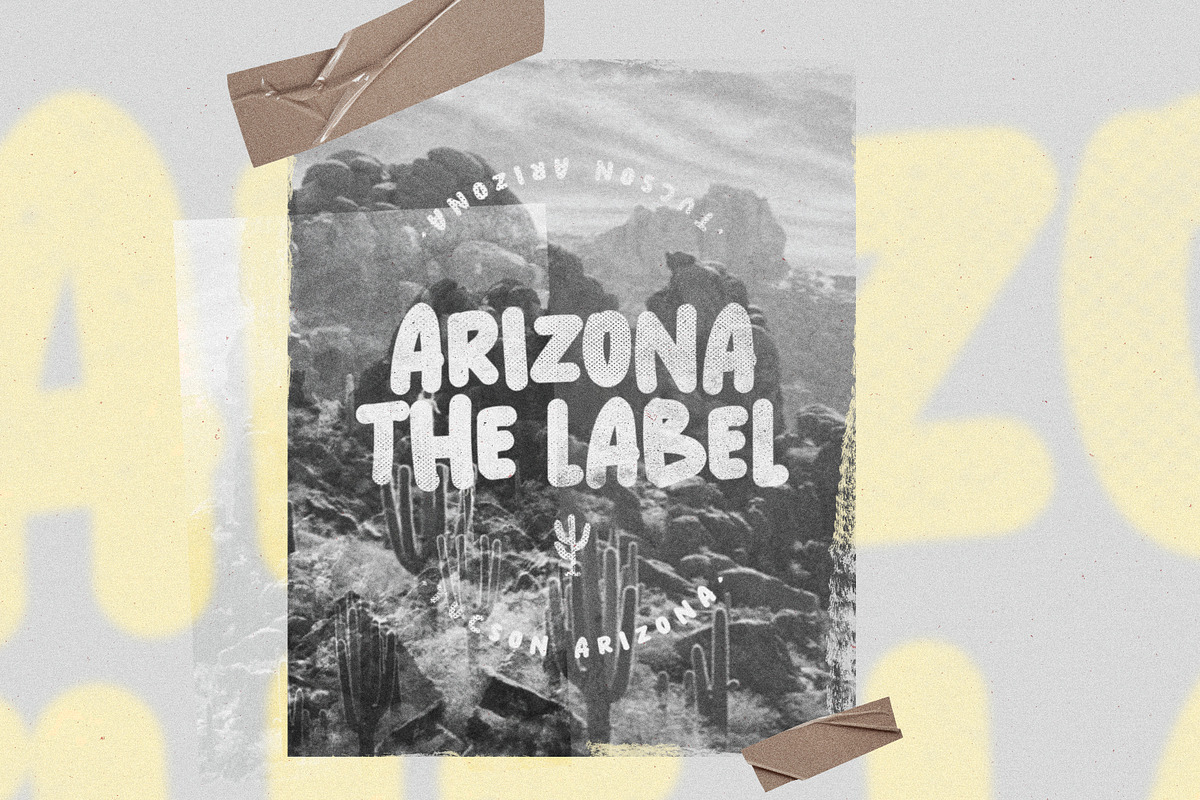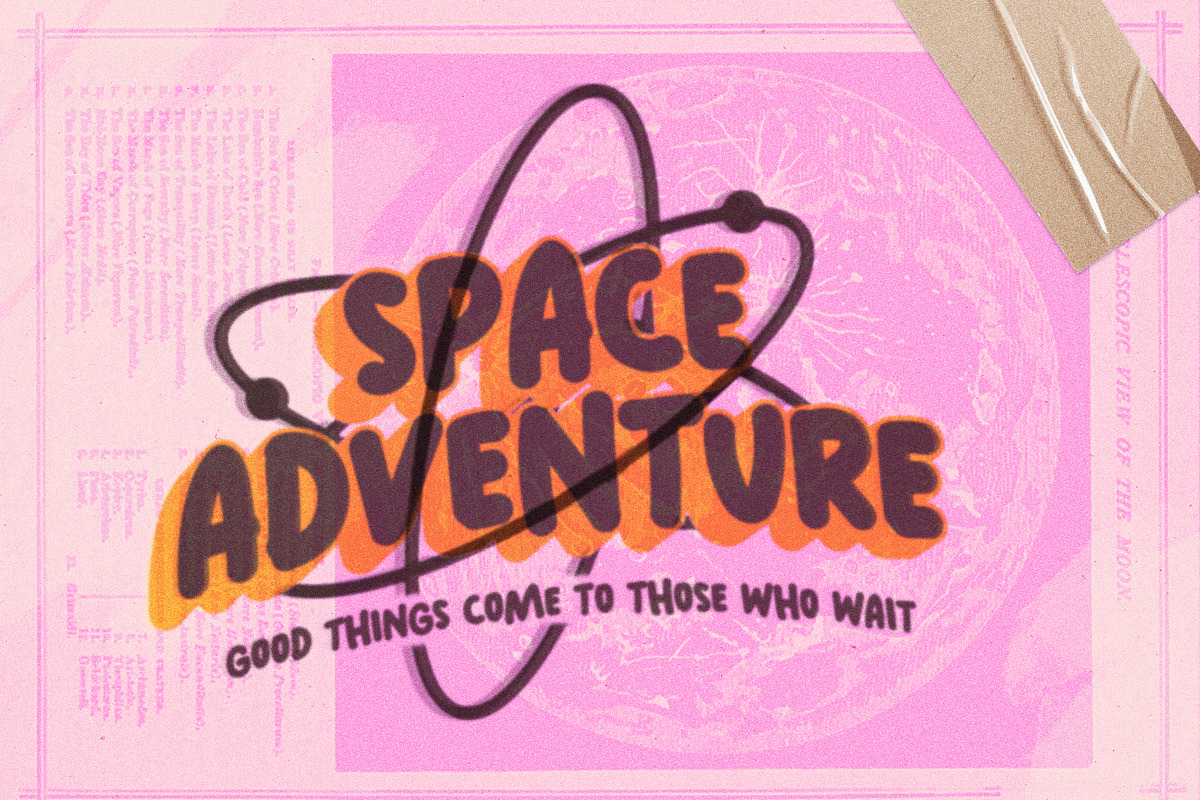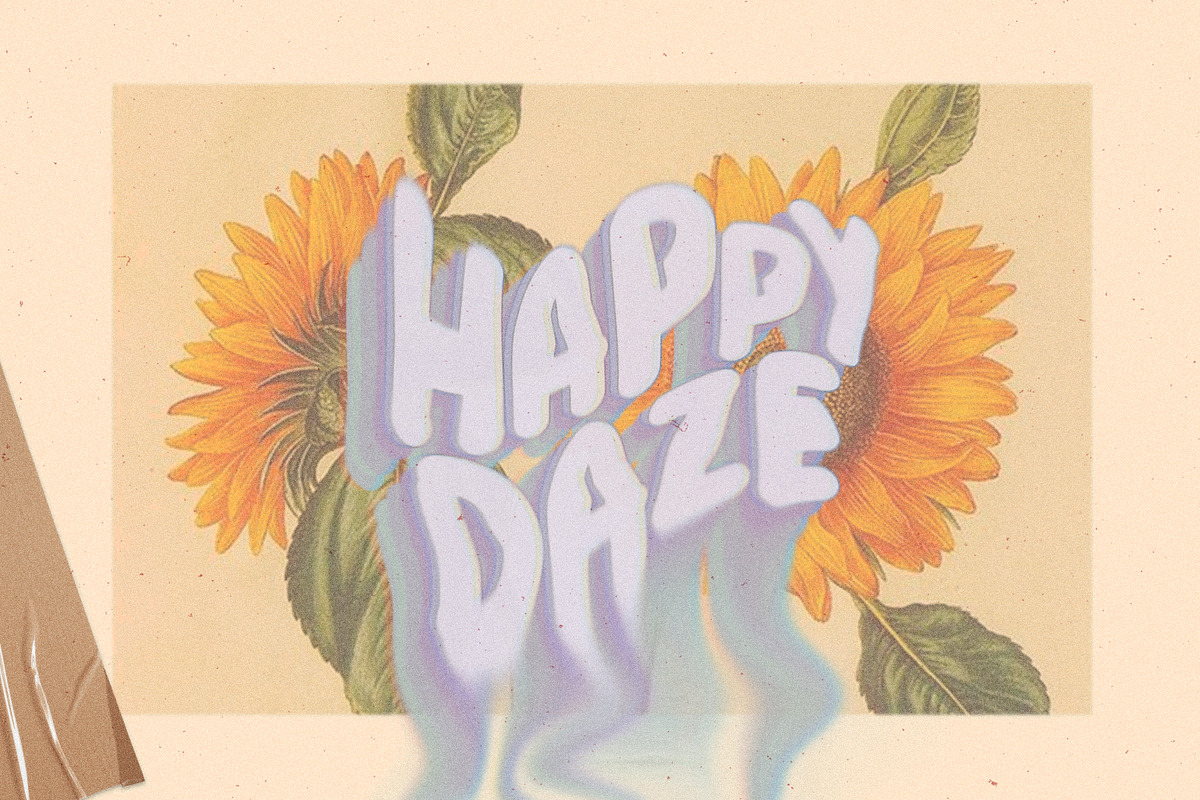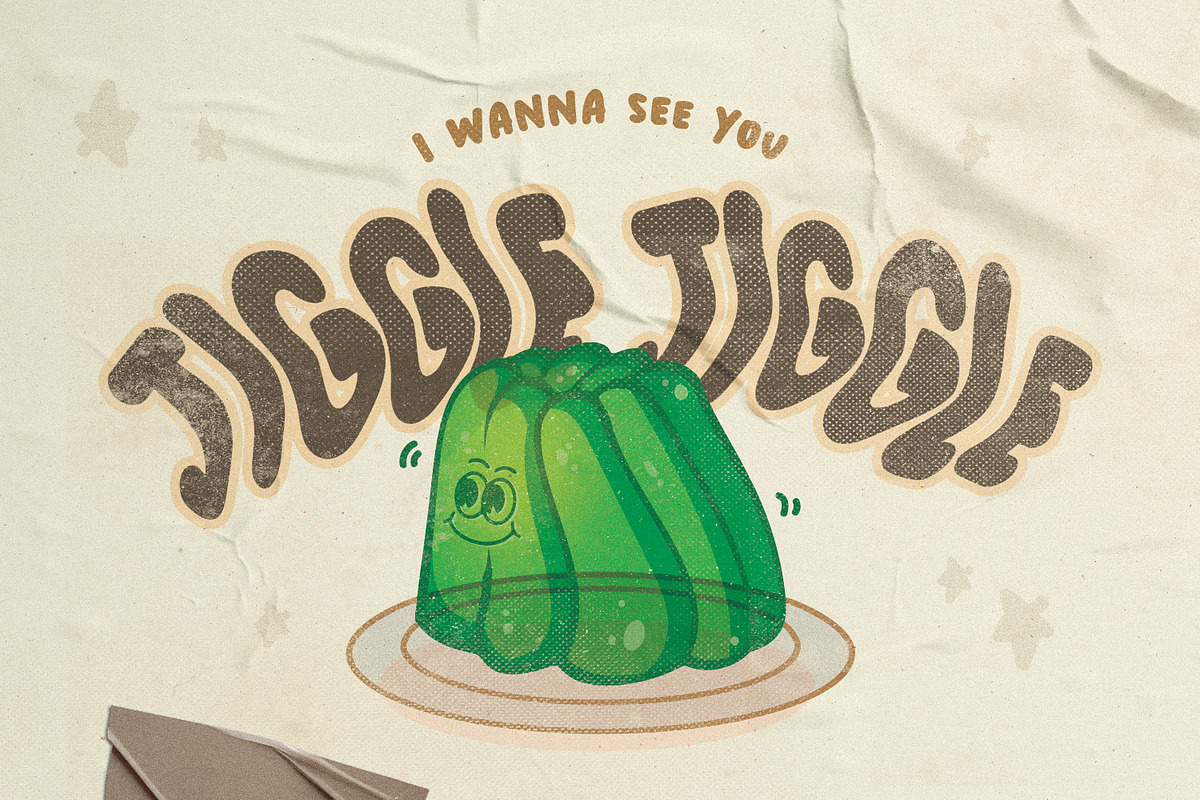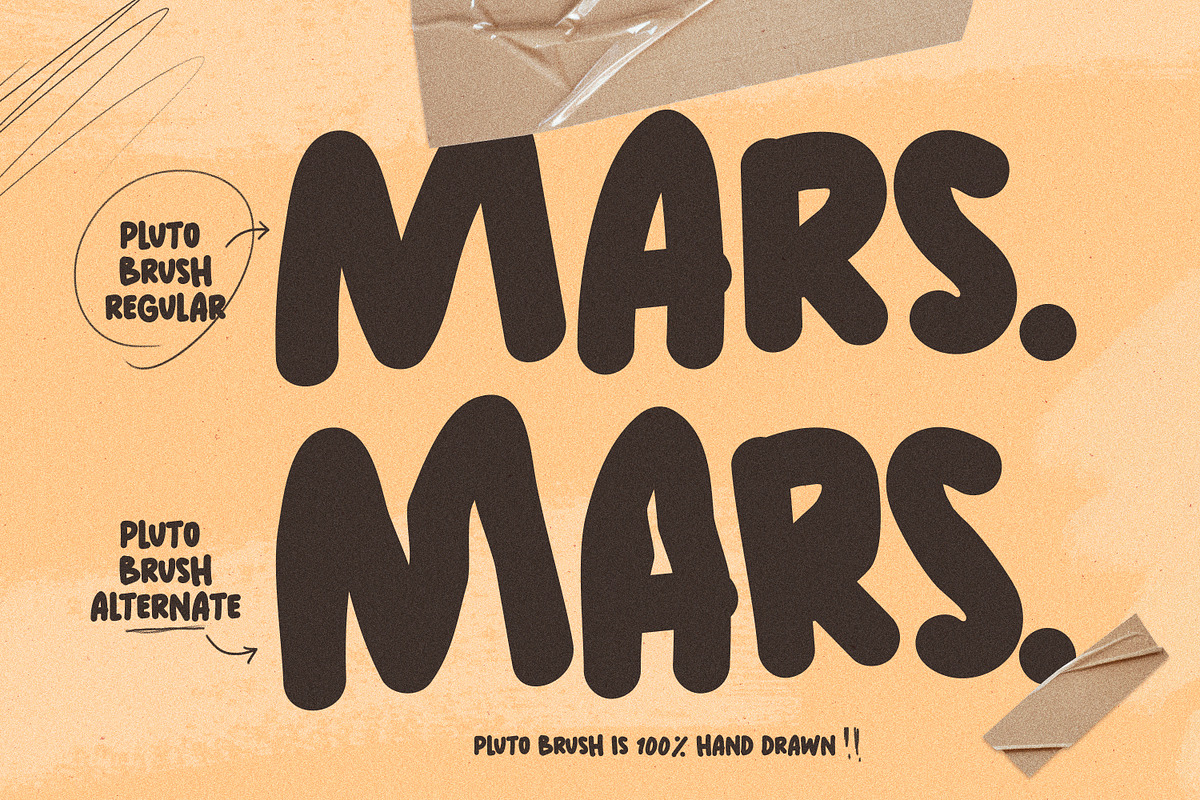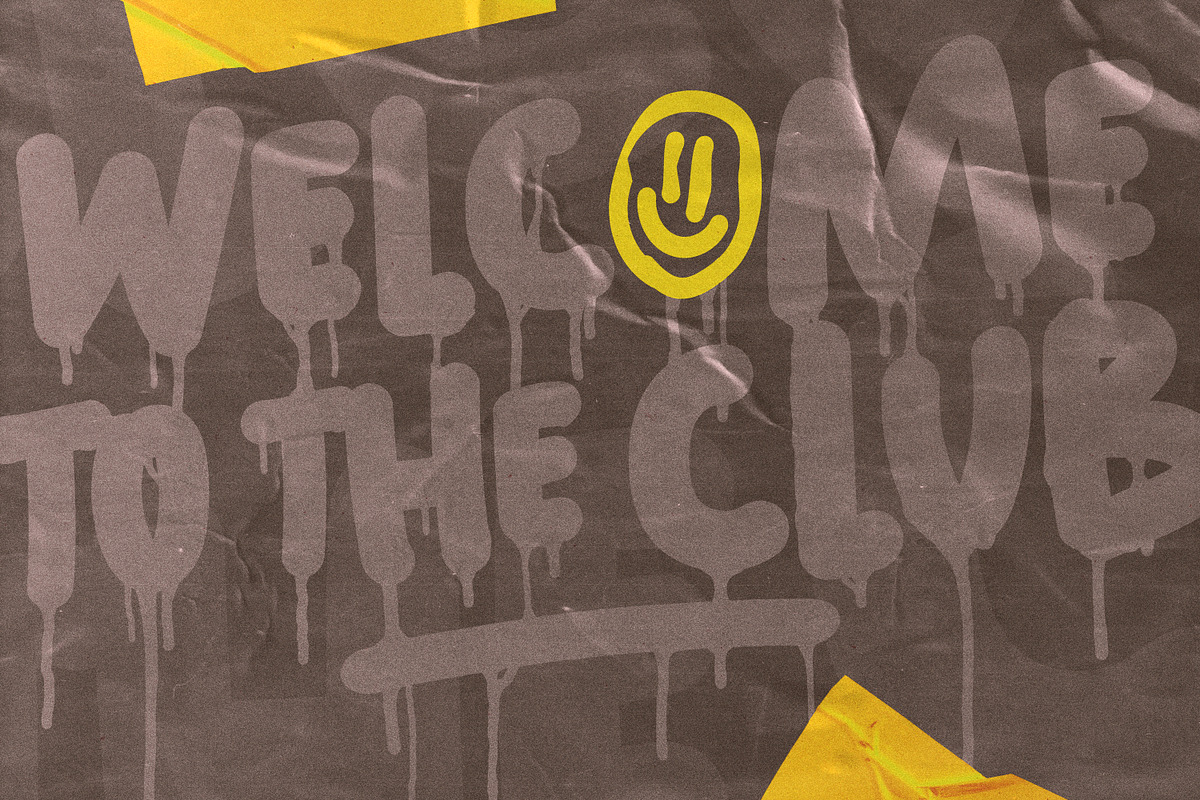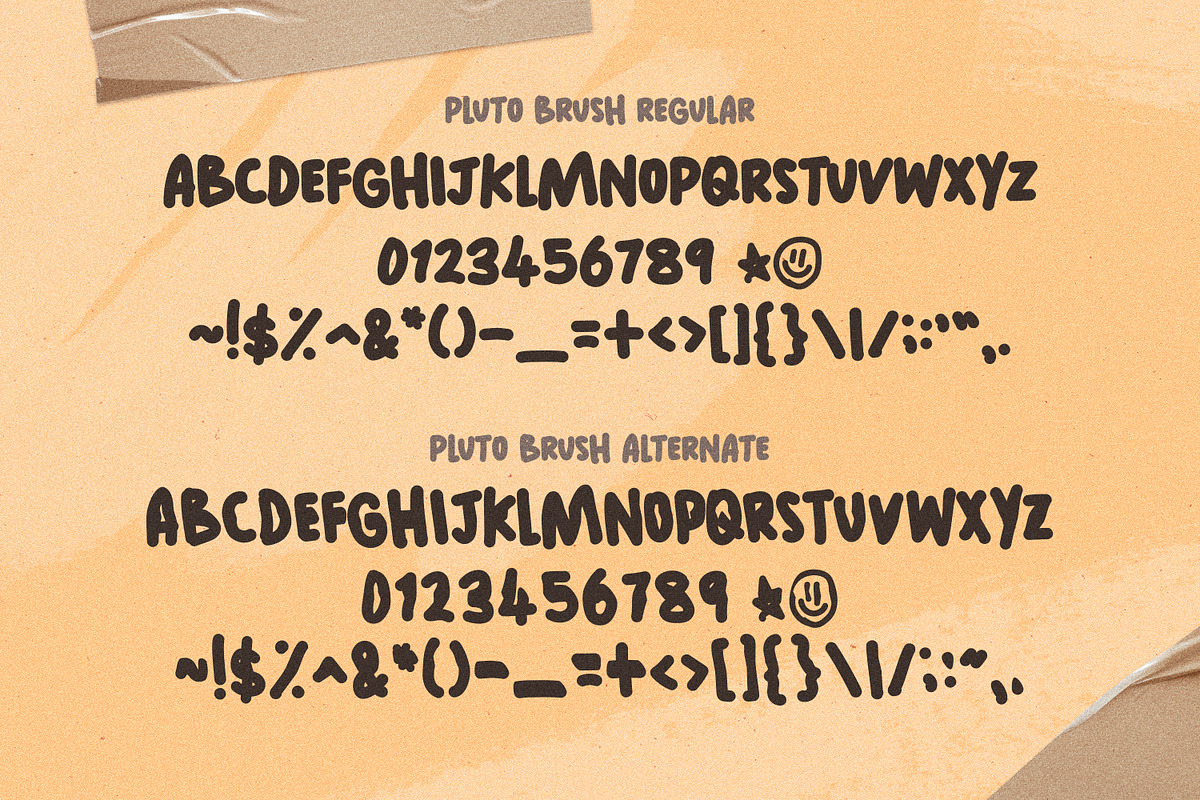
PLUTO Brush
Introducing Pluto Brush
Pluto Brush is a completely unique and custom hand drawn font. Pluto Brush comes with 2 variations which you can mix & match and is perfect for any design project.
Features: All Caps Font / Numerals / Punctuation / Alternate Font.